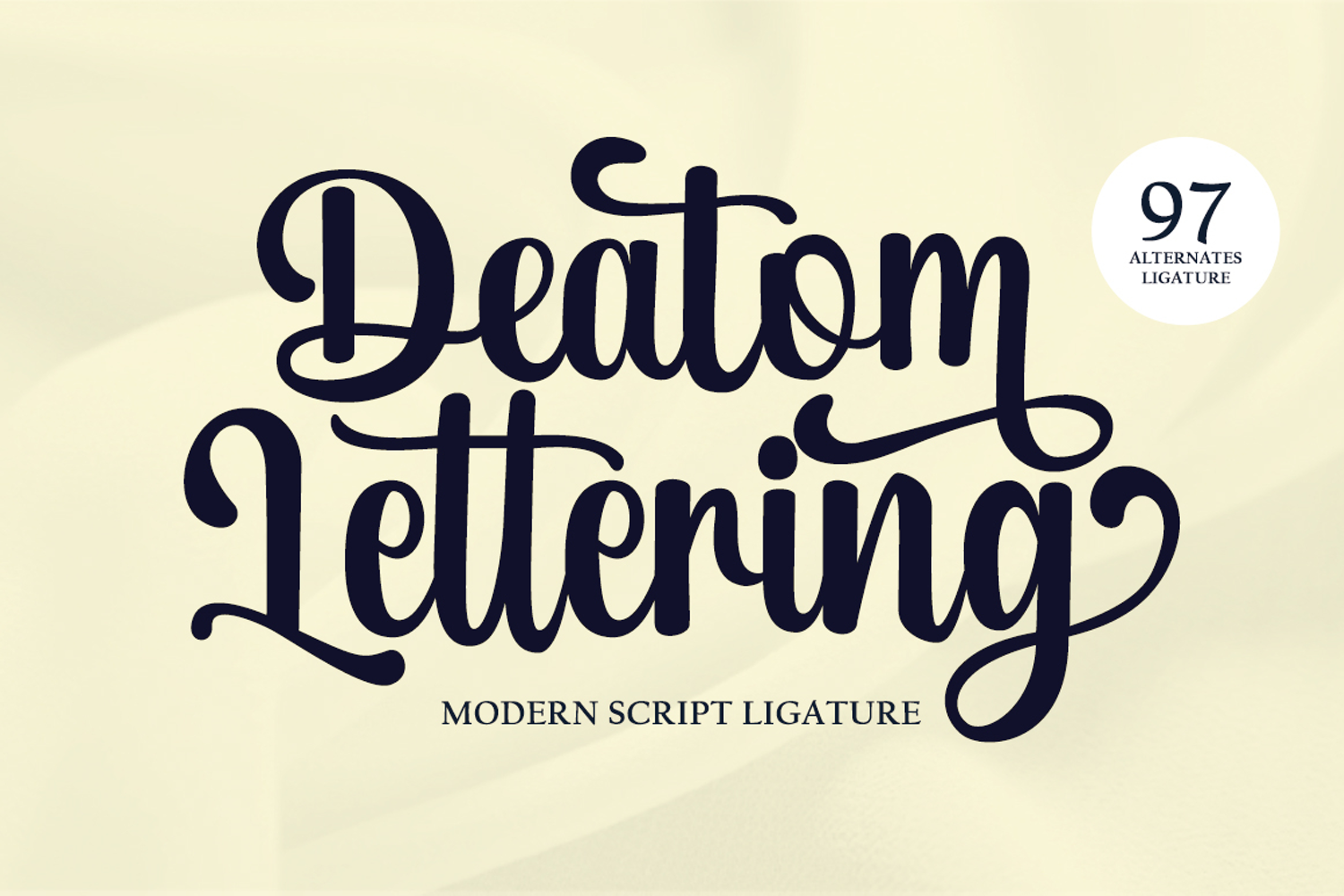
Deatom Lettering is a beautiful handwritten calligraphy font, designed with a unique, feminine, and elegant touch. This beautiful typeface is available in regular and bold versions.
Deatom Lettering stands out for its extensive collection of glyphs. Each letter has numerous alternates, easily accessible in applications that support OpenType.
Multilingual support is incredibly versatile, offering endless possibilities for customization and creativity in your designs, such as branding, logos, advertisements, merchandise, social media posts, packaging, magazine covers, websites, wedding invitations, and more.